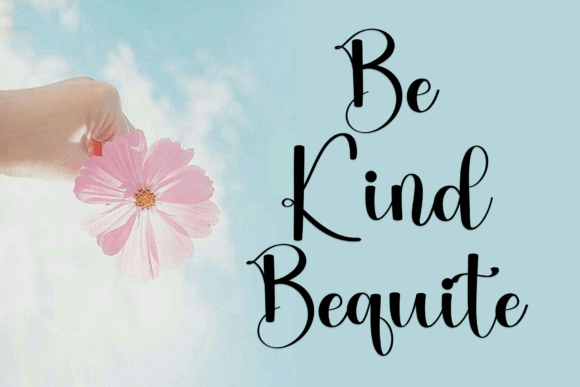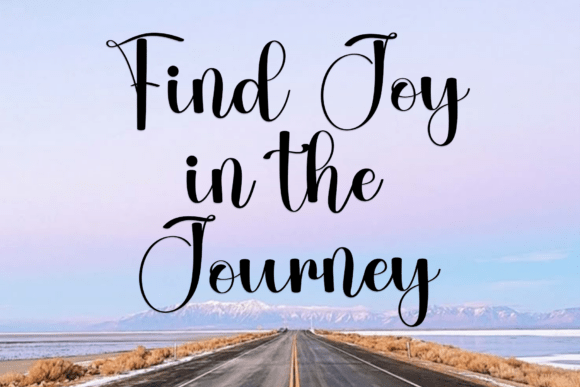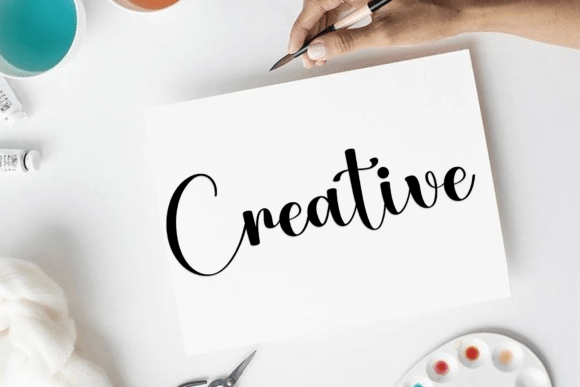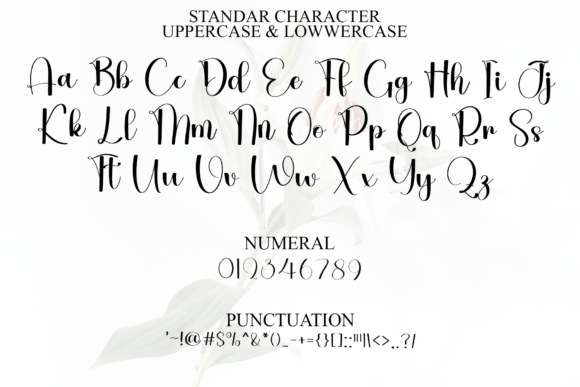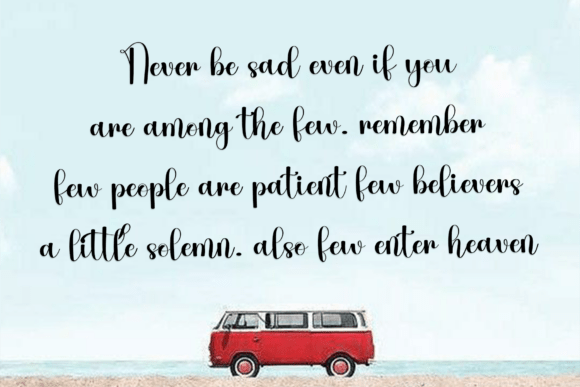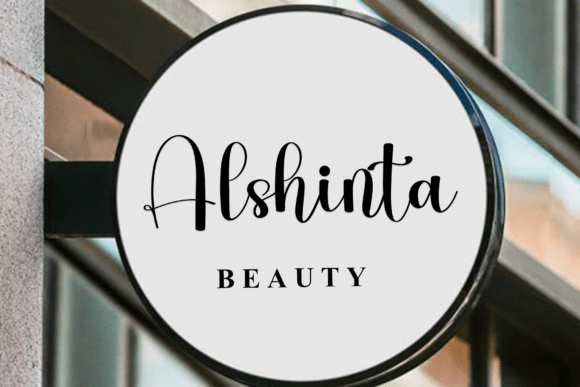
The Butter Font: A Delicious Addition to Your Design Toolkit
I’ll never forget the time I was working on a project for a client who wanted a font that was both playful and elegant. I had spent hours scouring the internet for the perfect font, but nothing seemed quite right. That was when I stumbled upon the Butter font. Its soft, unique touch and distinctive strokes immediately caught my eye, and I knew I had found the one. In this article, I’ll share my experience with the Butter font, its features, and how to make the most of it in your designs.
A Personal Review of the Butter Font
- ✨ The Butter font has a special character that sets it apart from other fonts. Its soft, rounded edges and unique strokes make it perfect for designs that require a touch of whimsy.
- ✅ The font is incredibly versatile and can be used for a wide range of projects, from crafts to digital designs.
- 🎨 The font’s natural style makes it perfect for designs that require a organic or handmade feel.
While the Butter font is amazing, there are a few things to keep in mind:
- ⚠️ The font may not be suitable for very formal or professional designs, as its playful nature may not fit the tone.
- 🤔 Some users may find that the font’s uniqueness can make it difficult to read at very small sizes.
If you like the Butter font, you may also want to try these similar fonts:
- Pacifico: A beautiful, modern script font with a similar feel to Butter.
- Great Vibes: A fun, handwritten font with a playful personality.
- Carolyna Pro: A pretty, script font with a feminine touch.
The Story Behind the Butter Font
The Butter font was designed by a team of creatives who wanted to create a font that was both unique and versatile. Inspired by the natural world, they crafted a font that was soft, playful, and elegant. The result is a font that’s perfect for designs that require a touch of whimsy and personality.
| What is the Butter font best used for? | The Butter font is perfect for designs that require a playful and elegant touch, such as crafts, digital designs, and creative projects. |